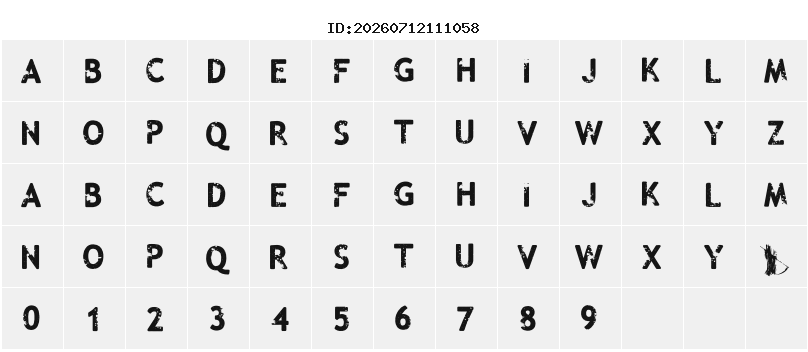
Malevolentz Preview
• Font Name: Malevolentz
• Full Font Name: Malevolent z
• Version: Version 1.00 2013
• Designer: Chris Vile
• Manufacturer: GKDN web and social imaging
• Description: Malevolent z is a font by GKDN web and social imaging, designed by Chris Vile in 2013.
About Malevolentz.otf
Malevolentz.otf is a modern, elegant sans-serif font designed for ultimate readability and visual harmony. Perfect for branding, headlines, web design, and print materials.